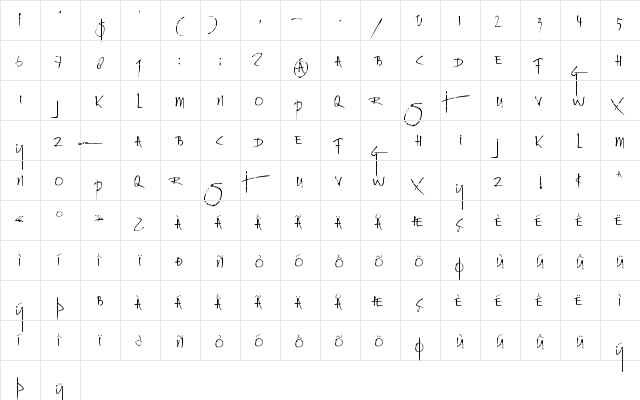
DK Rat Infested Mailbox Regular
| Foundry | David Kerkhoff |
| Designer | David Kerkhoff |
Design Context for DK Rat Infested Mailbox Typeface
DK Rat Infested Mailbox is a composed and adaptable typeface that performs quietly and consistently across a wide range of design contexts.